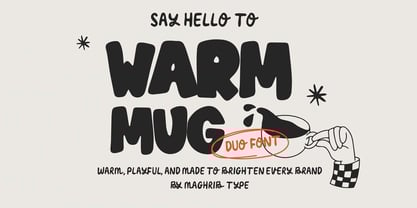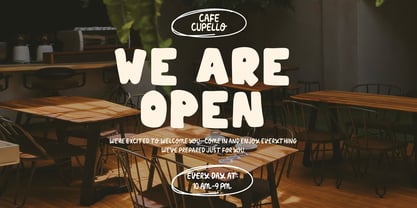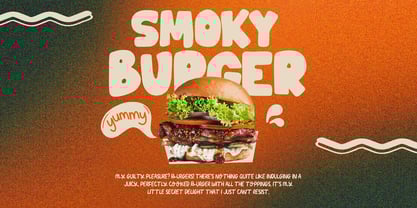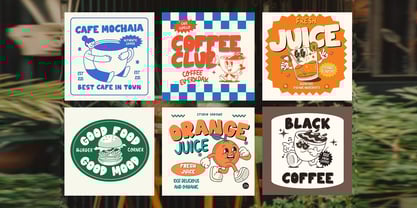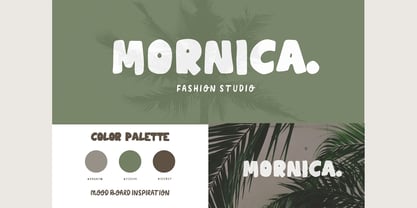
Warm Mug
by Maghrib Type
The Warm Mug Font Family was designed by Rizky Setyaludin and published by Maghrib Type. Warm Mug contains 2 styles and family package options.
Warm Mug is a bold handdrawn typeface with a playful, chunky, and rounded character that feels as warm as a fresh cup of coffee. Each letter is crafted with a natural handmade touch, creating a friendly, relaxed, and energetic personality. Its thick yet soft shapes make it highly legible while maintaining a strong and eye-catching visual presence. Inspired by summer café vibes, the aroma of freshly brewed coffee, and mouthwatering food posters, Warm Mug is perfect for café branding, coffee shop designs, summer food posters, menu boards, burger promotions, juice packaging, product labels, and social media content. It brings a fun, retro-modern, and cheerful atmosphere into any layout. With its authentic handdrawn style and versatile appeal, Warm Mug is designed to make your projects feel warmer, livelier, and more inviting.